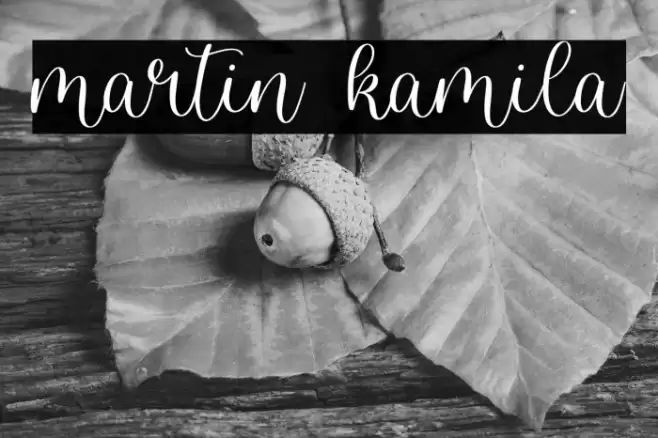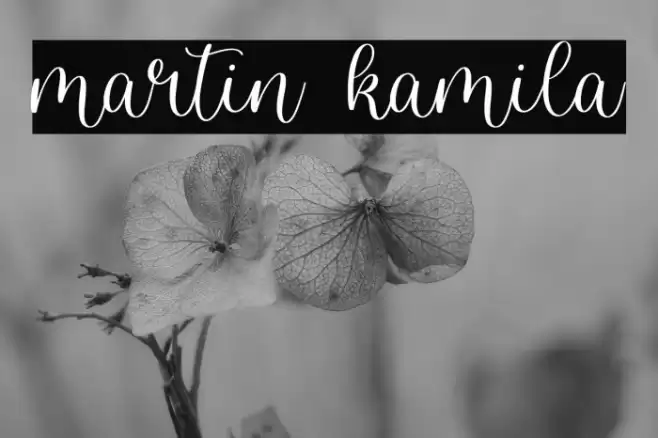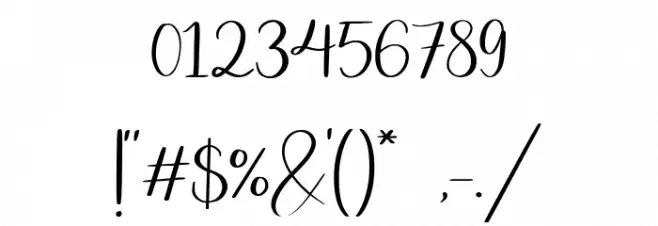
martin kamila Font
martin kamila Description
This elegant script font features flowing, interconnected letters that exude a sense of sophistication and grace. The uppercase letters are tall and slightly narrow, with delicate loops and swashes that add a touch of flair. The lowercase letters maintain a consistent style, with smooth curves and a natural handwritten feel. The numerals are clear and legible, complementing the overall aesthetic. Special characters are thoughtfully designed to match the font's elegant style, making it versatile for various design needs. The font's overall appearance is both modern and timeless, suitable for projects that require a personal touch.
A graceful script font with flowing, interconnected letters and elegant swashes from Regular fonts.
- Proposed Projects: Ideal for wedding invitations, greeting cards, branding, and elegant packaging designs.
- Overall Style: Elegant, Modern
- Use Case: Logos, Invitations, Branding